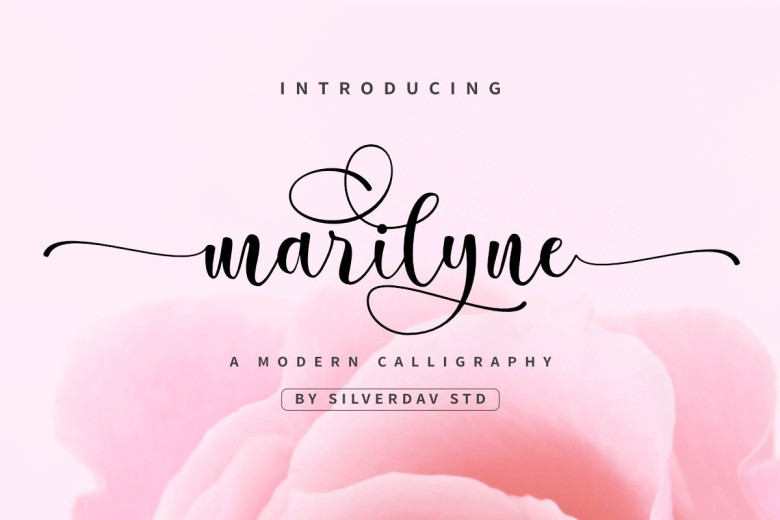
Marilyne Modern Calligraphy Font
Introducing Marilyne modern calligraphy an elegant new font! This font is specially created for those of you who need a touch of elegance to design your projects next with perfect results and amazing.
Marilyne Font a very beautiful and interesting script, and comes with a perfect line for use for various purposes. Like titles, signatures, logos, correspondence, wedding invitations, letterheads, nameplate, labels, bulletins, posters, badges, Branding, Greeting Cards, etc.